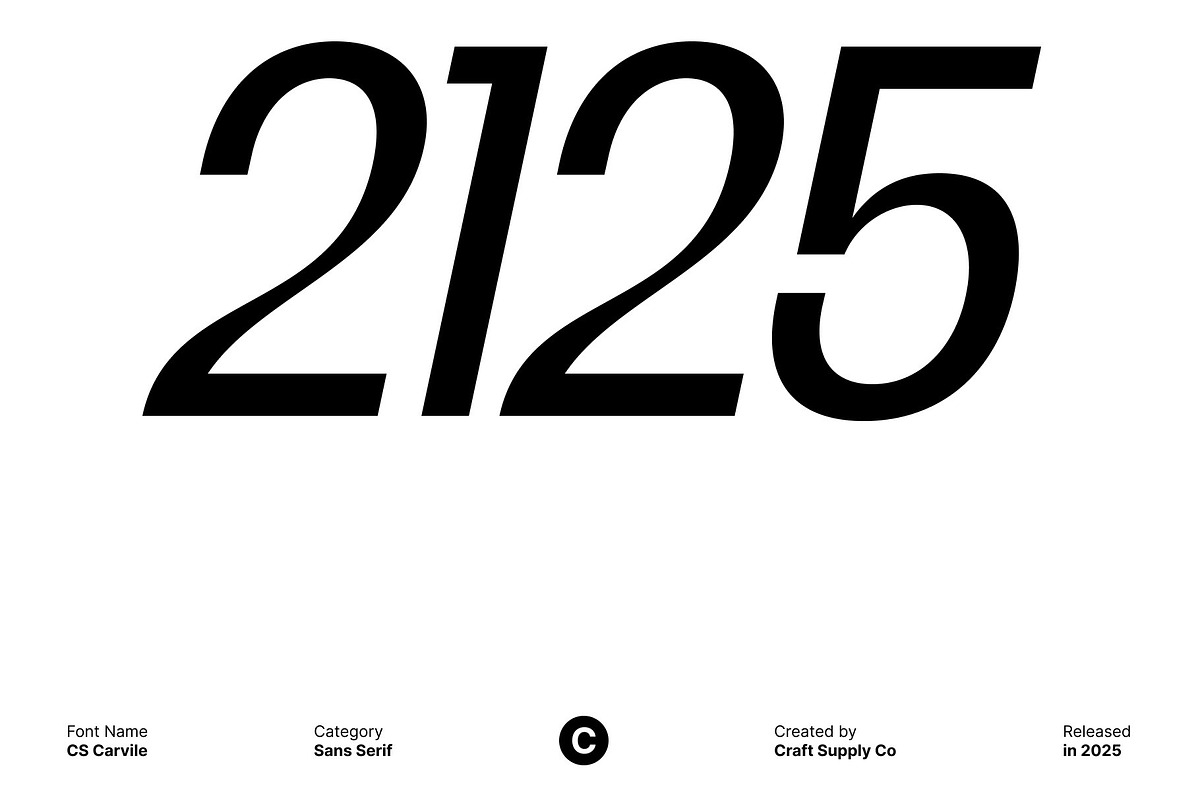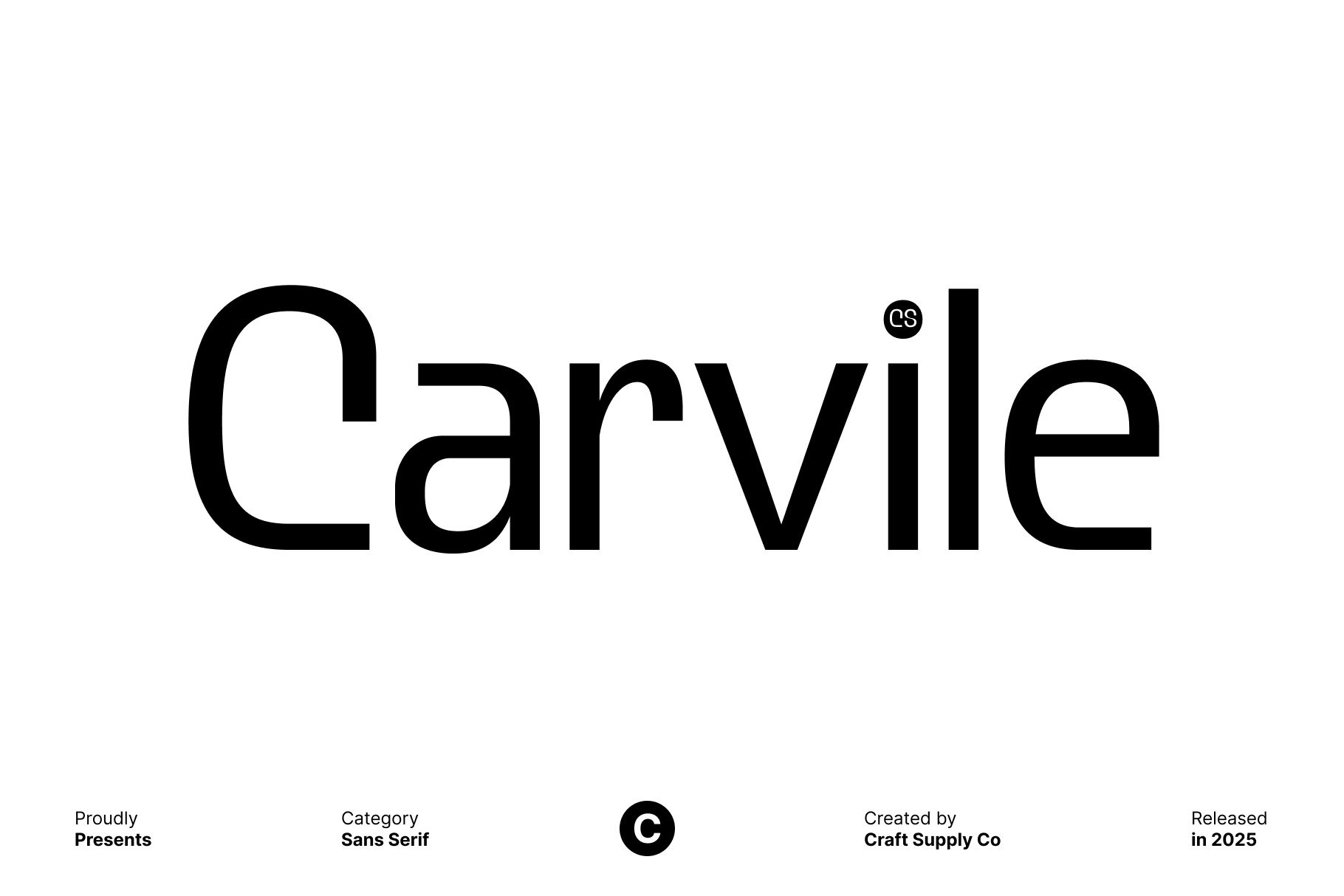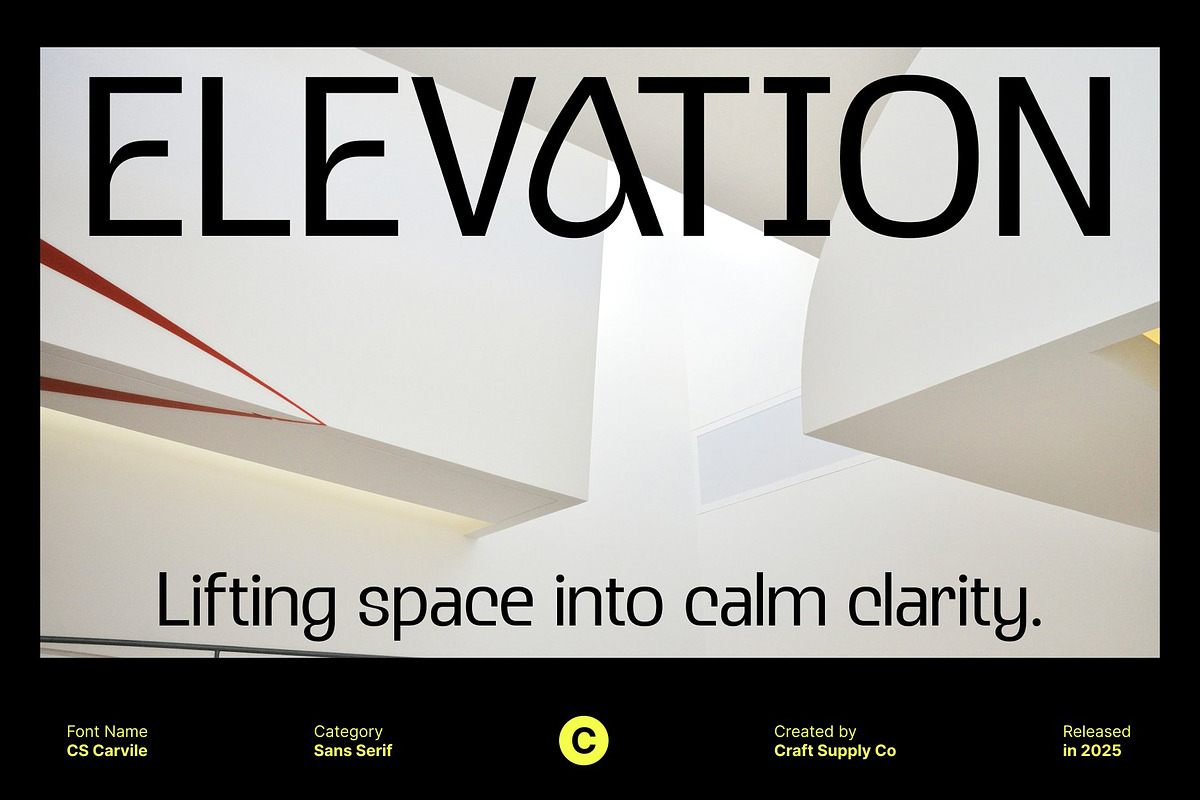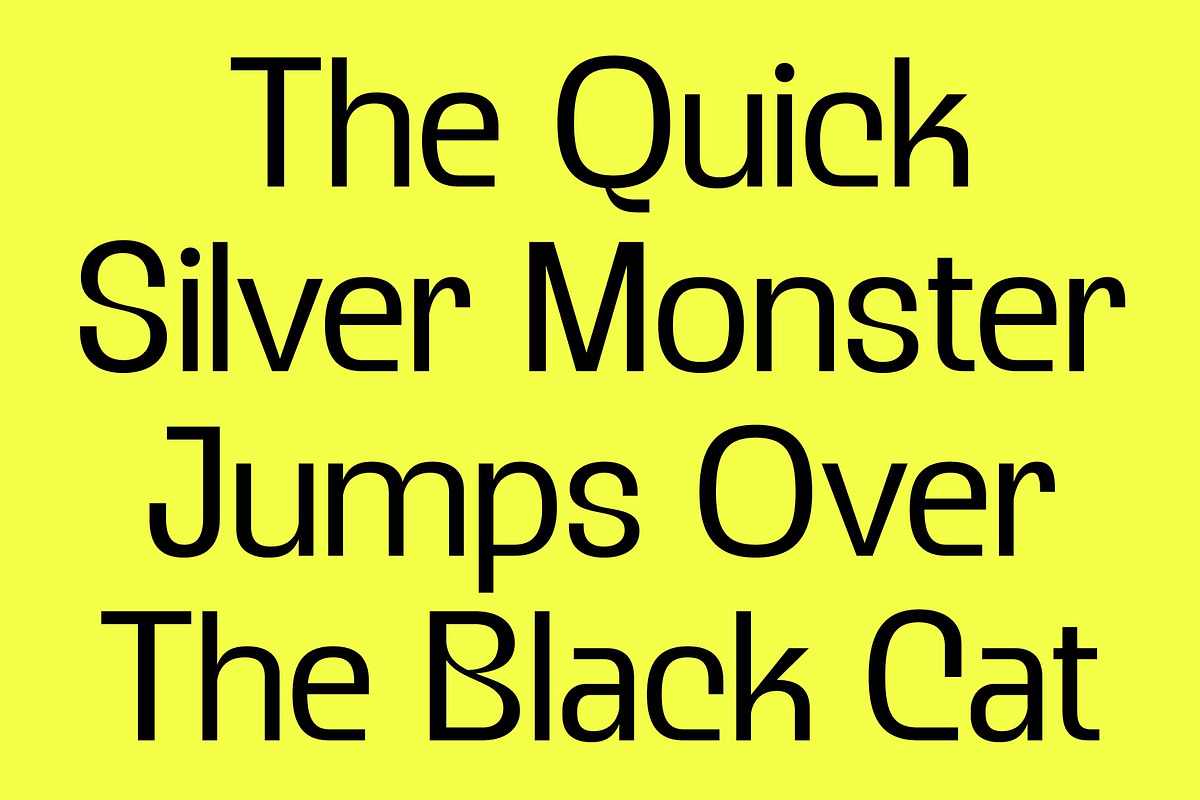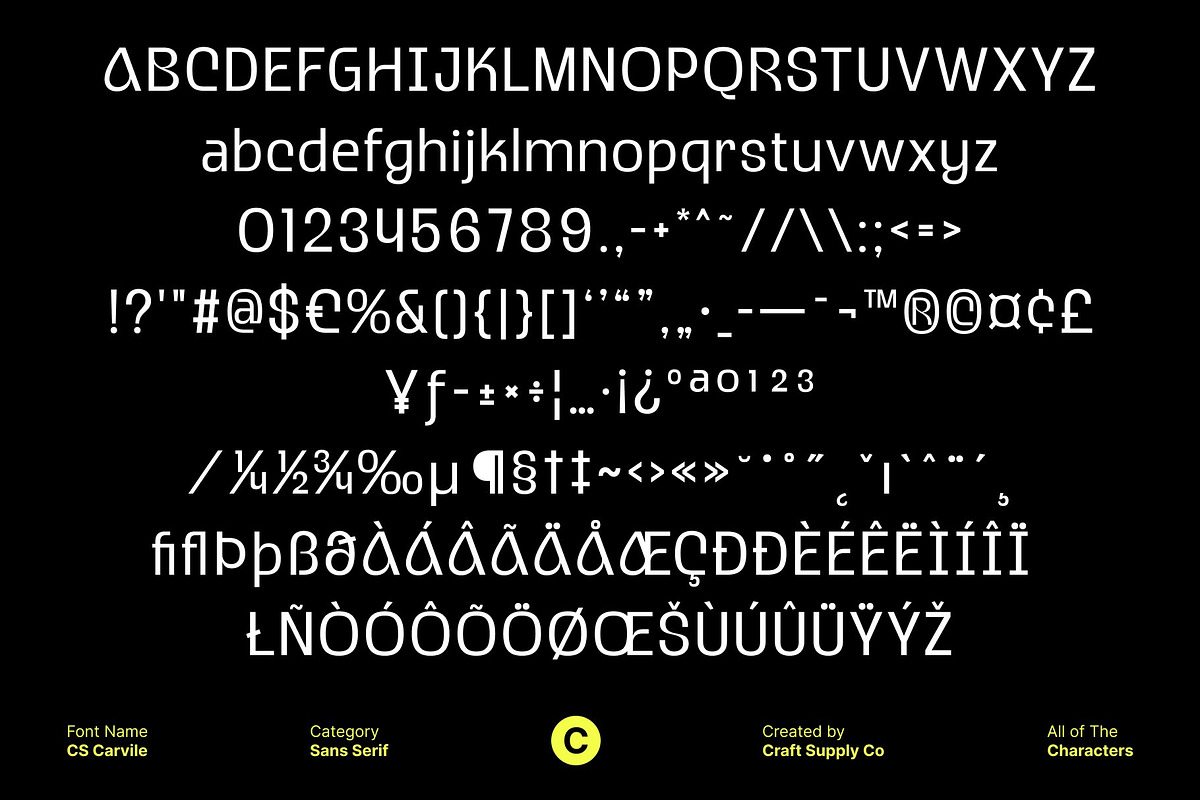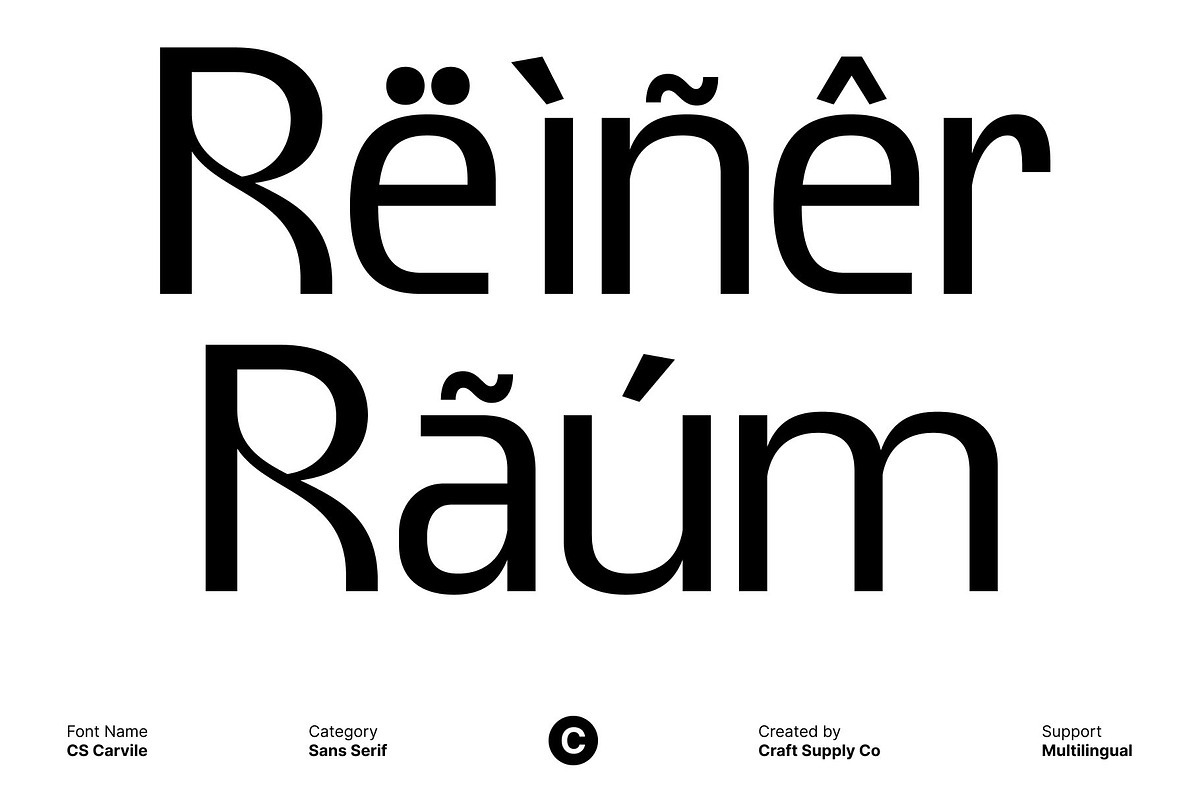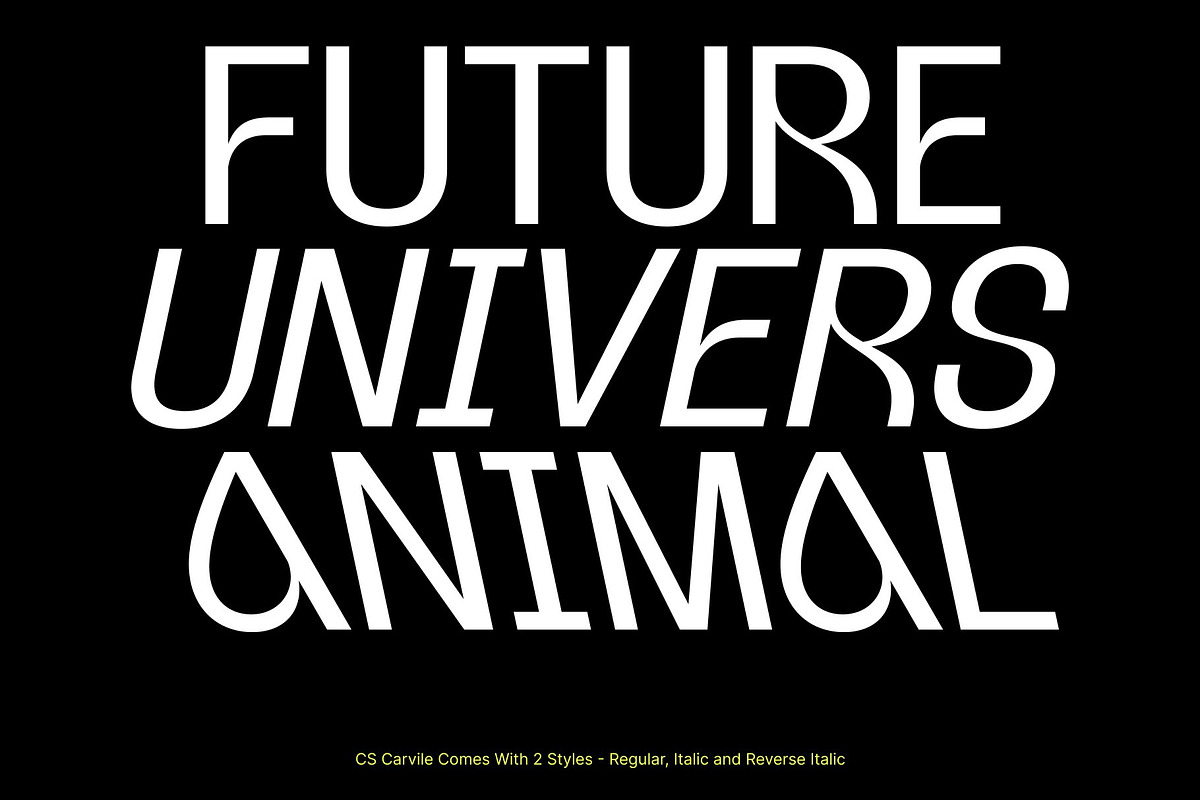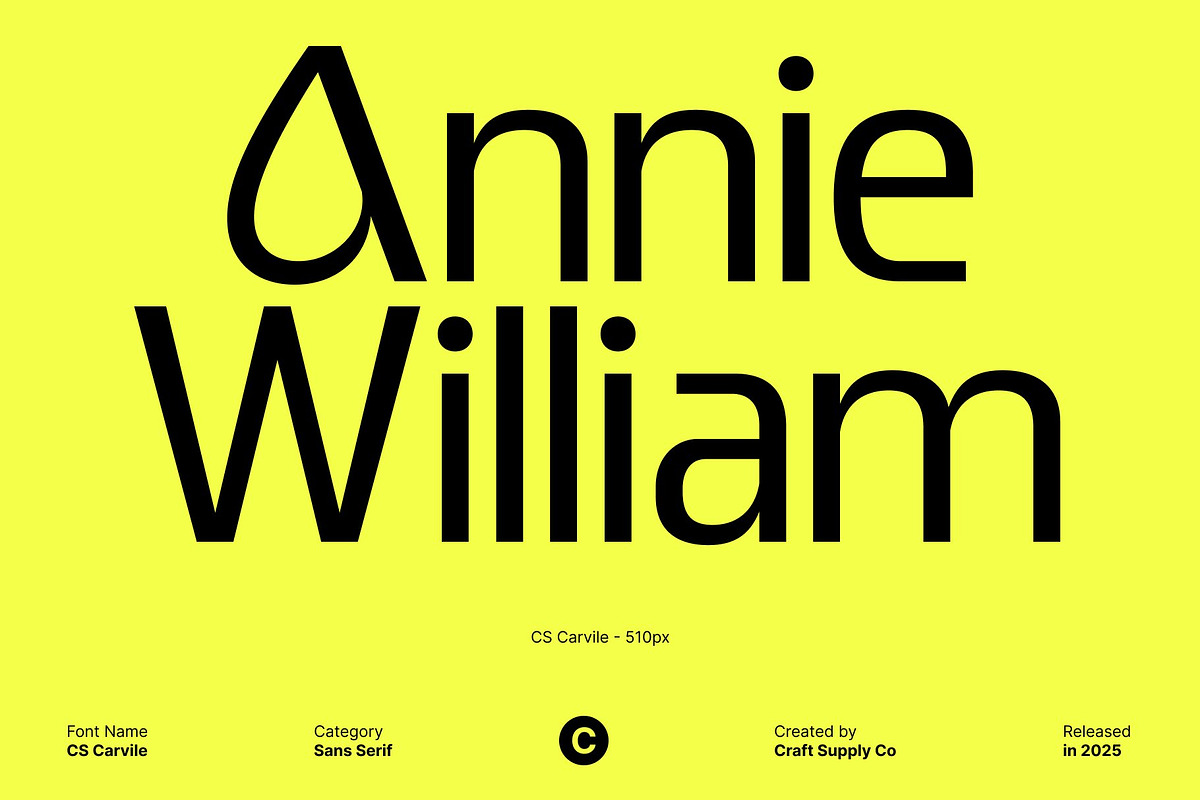
CS Carvile – Sans Serif Typeface
CS Carvile – Modern Sans Serif with Smooth, Relaxed Curves
Smooth Modern Shapes with Beautiful, Distinctive Curves This is a modern sans serif font designed with clean geometry and refined curves that set it apart from the typical minimalist style. Its gentle, flowing shapes add a subtle elegance and warmth, creating a fresh and contemporary visual identity. Every letter feels thoughtfully sculpted, giving the font a smooth, modern aesthetic that stands out with ease.
Professional Appearance with a Calm, Relaxed Feel Balancing professionalism with approachability, maintains a polished look while offering a soft, relaxed tone. Its harmonious curves create a friendly atmosphere without sacrificing clarity or structure. This makes it perfect for brands and designers who want to communicate trustworthiness with a touch of casual charm.
Versatile for Branding, Editorials, and Modern Visual Identities This font adapts beautifully to a wide range of design needs. Whether used in branding, social media content, editorial layouts, or digital interfaces, it delivers clean readability and stylish simplicity. Its balanced personality makes it ideal for industries like lifestyle, fashion, wellness, creative agencies, and modern corporate identities.
Ideal for Headings, Logos, and Thoughtful Design Projects Designed for both display and text applications, shines in headlines, logos, posters, and refined promotional materials. Its mix of smooth curves and modern simplicity ensures your message feels approachable yet professional.
- CS Carvile Regular
- CS Carvile Italic
- CS Carvile Reverse Italic